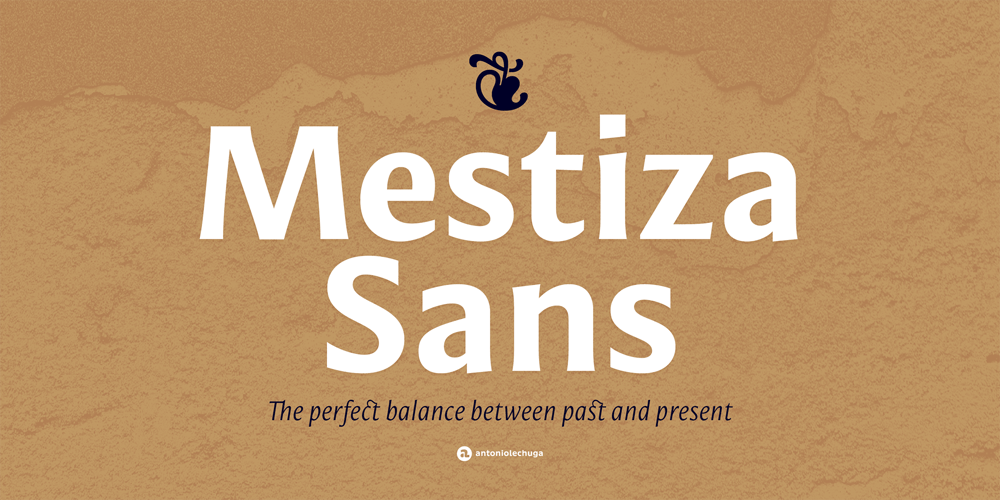
Mestiza Sans Font Family was designed by Antonio Mejía and published by Lechuga Type. Mestiza Sans contains 12 styles and family package options. Mestiza Sans is the new family of the Mestiza system, the perfect complement to the serif version, reinforcing and expanding the possibilities of use and combination.It discreetly and harmoniously preserves the relics of the serifs, bringing the artisanal to the contemporary in a mix that continues to evoke elegance and strength. It’s ideal for headlines, branding, and editorial projects.